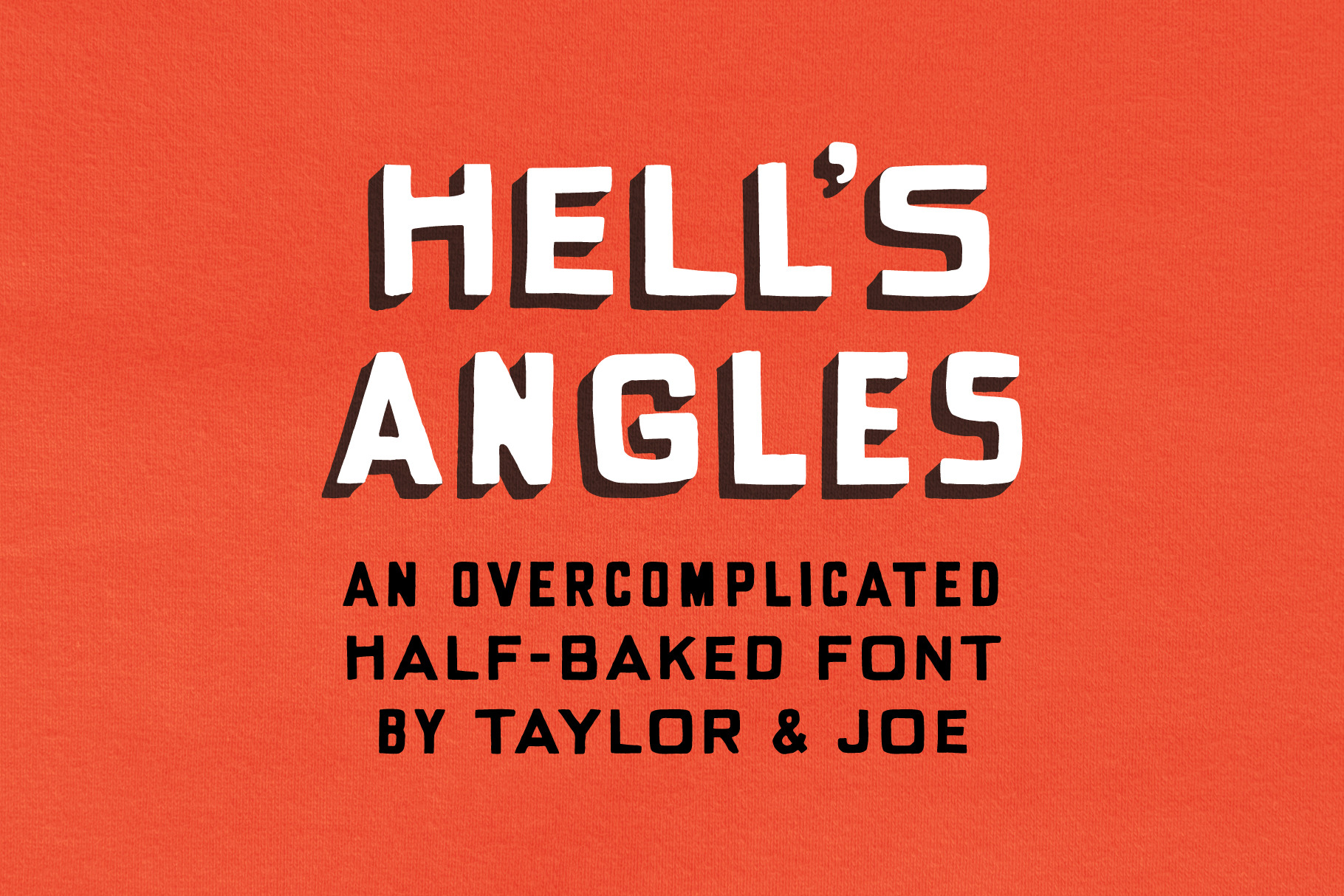
Hell's Angles Handdrawn Display Font
From Taylor, because I can't be bothered to write my own description:
'It's ugly, miscalculated, and odd. It's perfect.
Hell's Angles is what happens when two designers fight about direction for weeks and eventually say screw it, let's just make something weird. Joe and I built this one together, which means it has twice the opinions and half the restraint.
Contextual alternates are baked into the lowercase. If you don't know what that means, Google is your friend!
No regrats.'